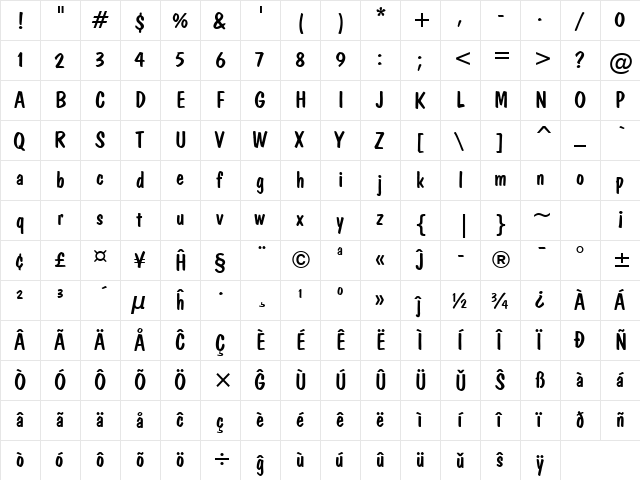
Dom Eo Regular
Design Context for Dom Eo Typeface
Dom Eo is a composed and adaptable typeface that performs quietly and consistently across a wide range of design contexts.